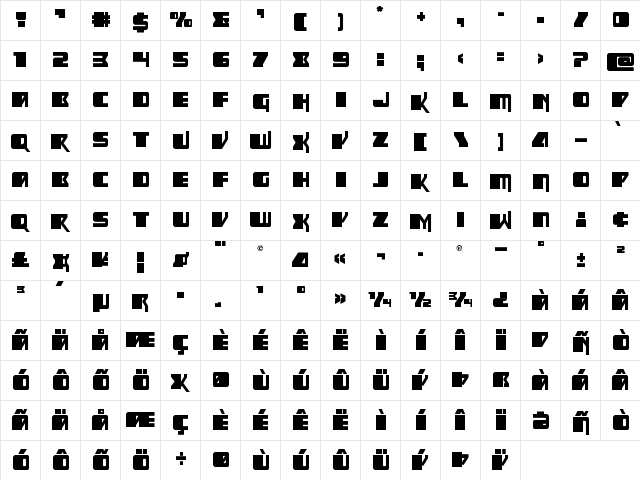
Space Runner Regular
Design Context for Space Runner Typeface
Space Runner is a composed and adaptable typeface that performs quietly and consistently across a wide range of design contexts.